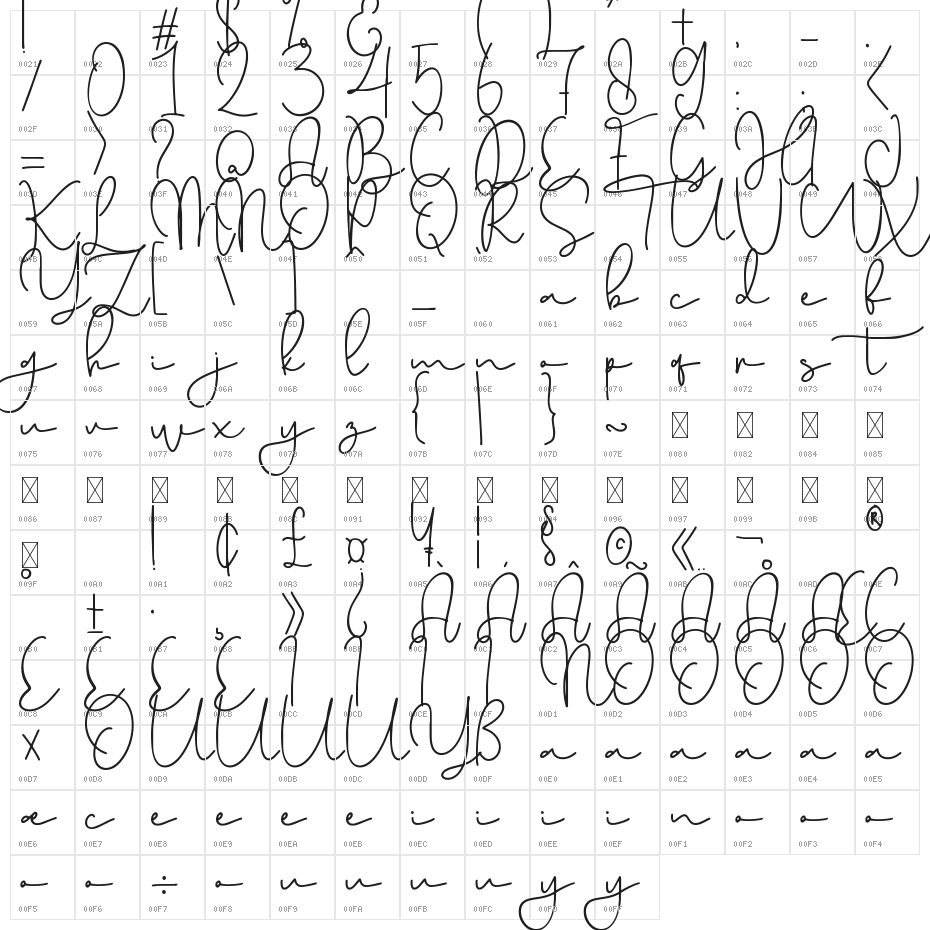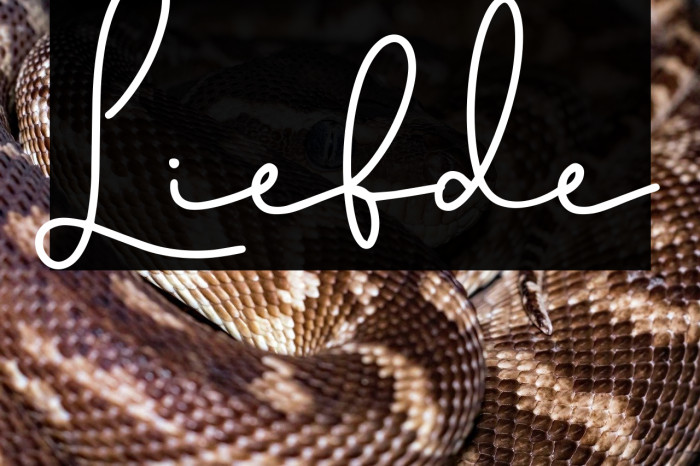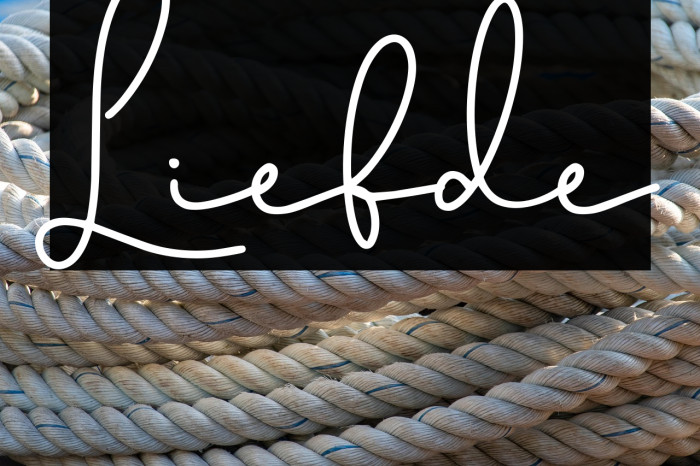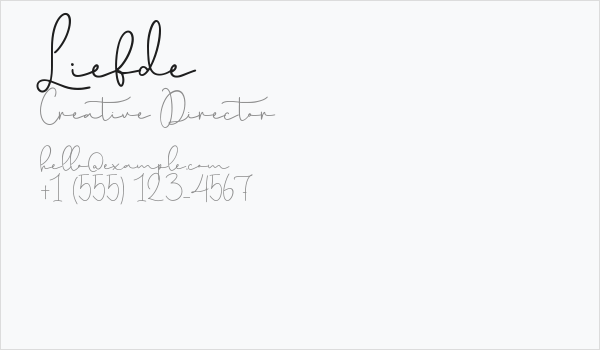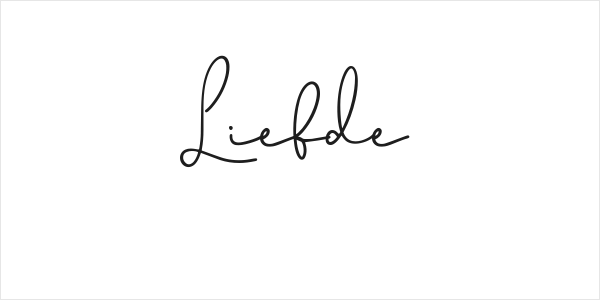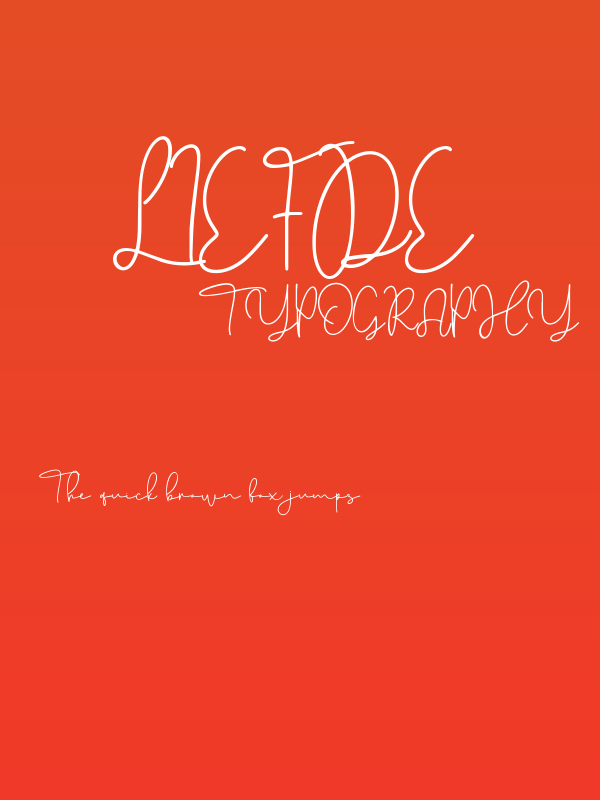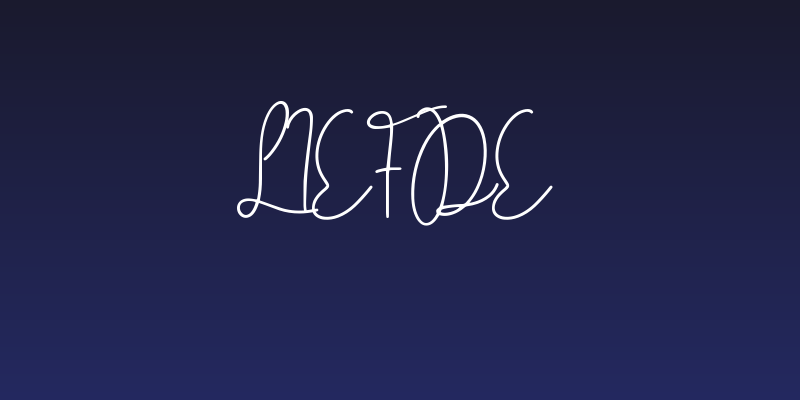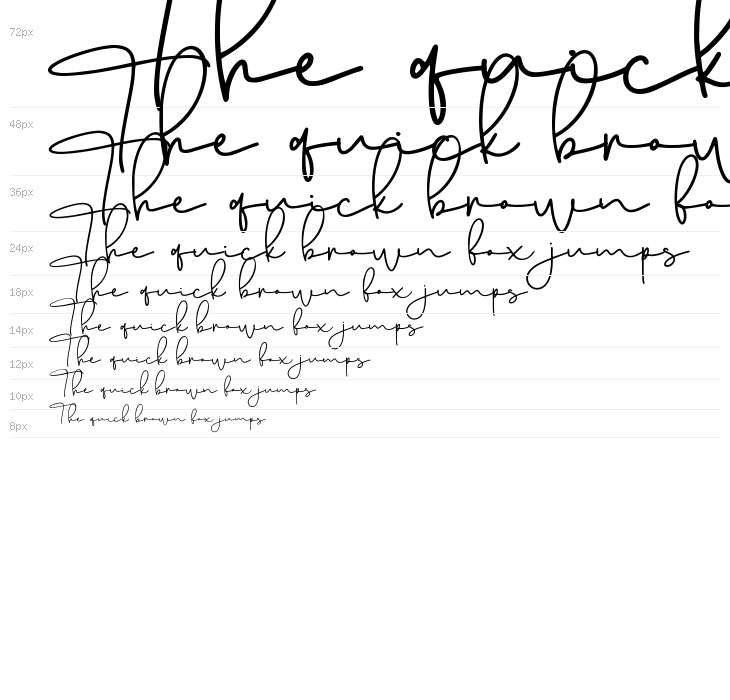
Liefde Font
Liefde Description
A flowing, handwritten script font with tall ascenders and descenders, featuring thin, consistent strokes and a casual, elegant appearance. The characters are loosely connected, giving it a natural, personal feel.
| Overall Style | Decorative, Elegant, Casual |
| Use Case | Logos, Invitations, Headlines, Decorative text |
| Proposed Projects | Wedding invitations, personal branding, greeting cards, quotes, social media graphics. |